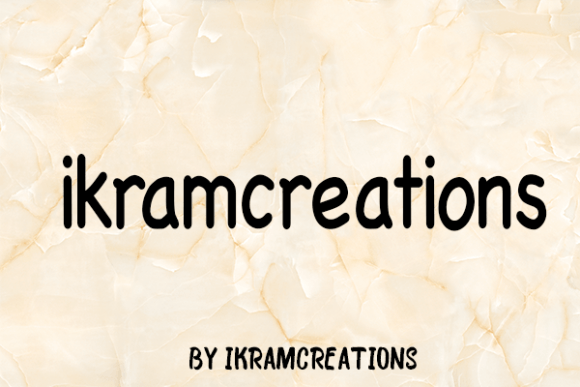
Introduction to Ikramcreations Font
Have you ever stumbled upon a font that instantly sparks your creativity and makes you want to dive into a new project? For many designers, that moment of inspiration is what drives them to push the boundaries of their craft. For me, it was the Ikramcreations Font that ignited that spark. Its simple yet elegant design is perfect for a wide range of creative projects, from invitations to digital art.
As a valuable design resource, the Ikramcreations Font is a game-changer for designers looking to add a touch of personality to their work. With its high-quality, transparent background, it’s perfect for overlaying on images or using as a standalone element. And the best part? It’s available for free download, making it accessible to designers of all levels.
Whether you’re working on a personal project or a client’s design, the Ikramcreations Font is an excellent choice for adding a touch of class and whimsy to your work.
Key Features of Ikramcreations Font
- High-quality design resource ideal for creative projects, including logos, posters, and more.
- Comes with a transparent background, allowing for easy customization and seamless integration into various designs.
- Includes a comprehensive set of characters, including uppercase and lowercase letters, numbers, and punctuation marks.
- Unique characteristics include a modern, sleek aesthetic and a wide range of font styles to suit various design needs.
Honest Review: Ikramcreations Font
As a designer, I’m always on the lookout for new and exciting design resources to elevate my creative projects. Recently, I stumbled upon the Ikramcreations Font, and I’m excited to share my honest review with you.
What works well: ✨ The Ikramcreations Font has a unique and quirky style that adds a touch of personality to any design project. The font is highly customizable, and the transparent background option makes it perfect for overlaying text on images. The high quality of the font is also impressive, with crisp and clear lines that make it easy to read.
Overall impression: I’m a big fan of the Ikramcreations Font, and I think it’s a great addition to any designer’s toolkit. While it may have some limitations, the font’s unique style and high quality make it a great choice for personal projects or creative endeavors.
- Unique and quirky style